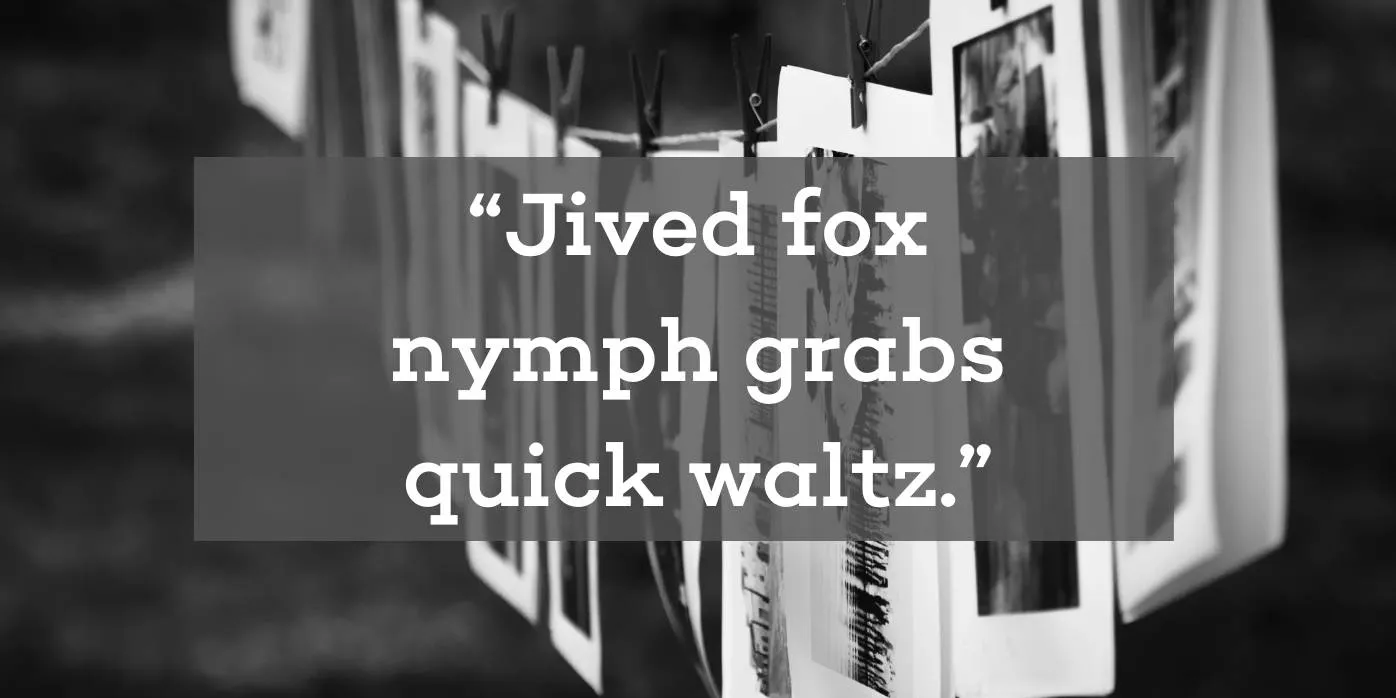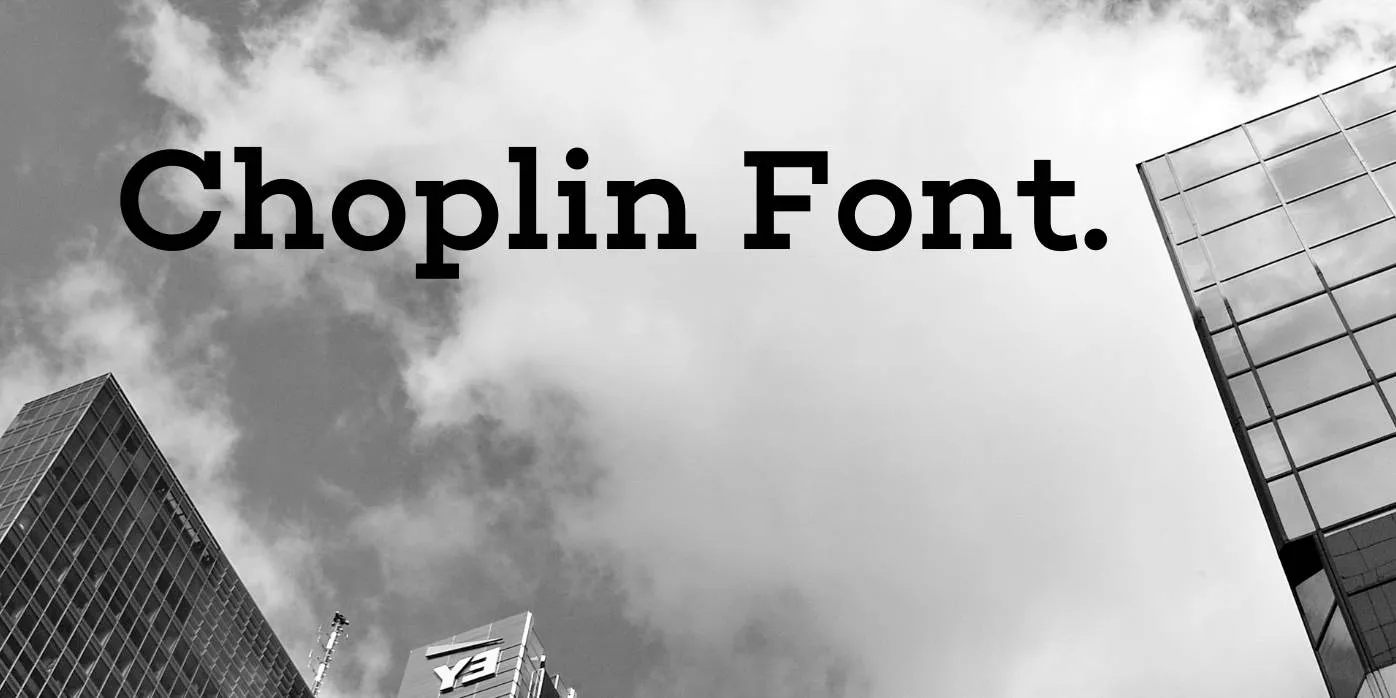
Choplin Font
Choplin Font was developed and published by very famous designer René Bieder. This typeface belongs to the Slab Serif typeface. It was released in early 2014. The font is available in 8 weights with matching italics.
This type is specified by the CSS Family. This cute typeface is a very versatile typeface that can be used for multiple purposes such as small text. It has a modern and clean look that makes it perfect for contemporary designs. Its copy and paste function is best for different text designs.
Hornet Font is one of the most famous similar of this typeface Its eight special weights are Thin, XLight, Light, Regular, Medium, Bold, Bold, and Black. You can use this font for both digital and print design projects. This Font has a modern and clean look that makes it perfect for contemporary designs. It is available in 3 styles with matching italics.